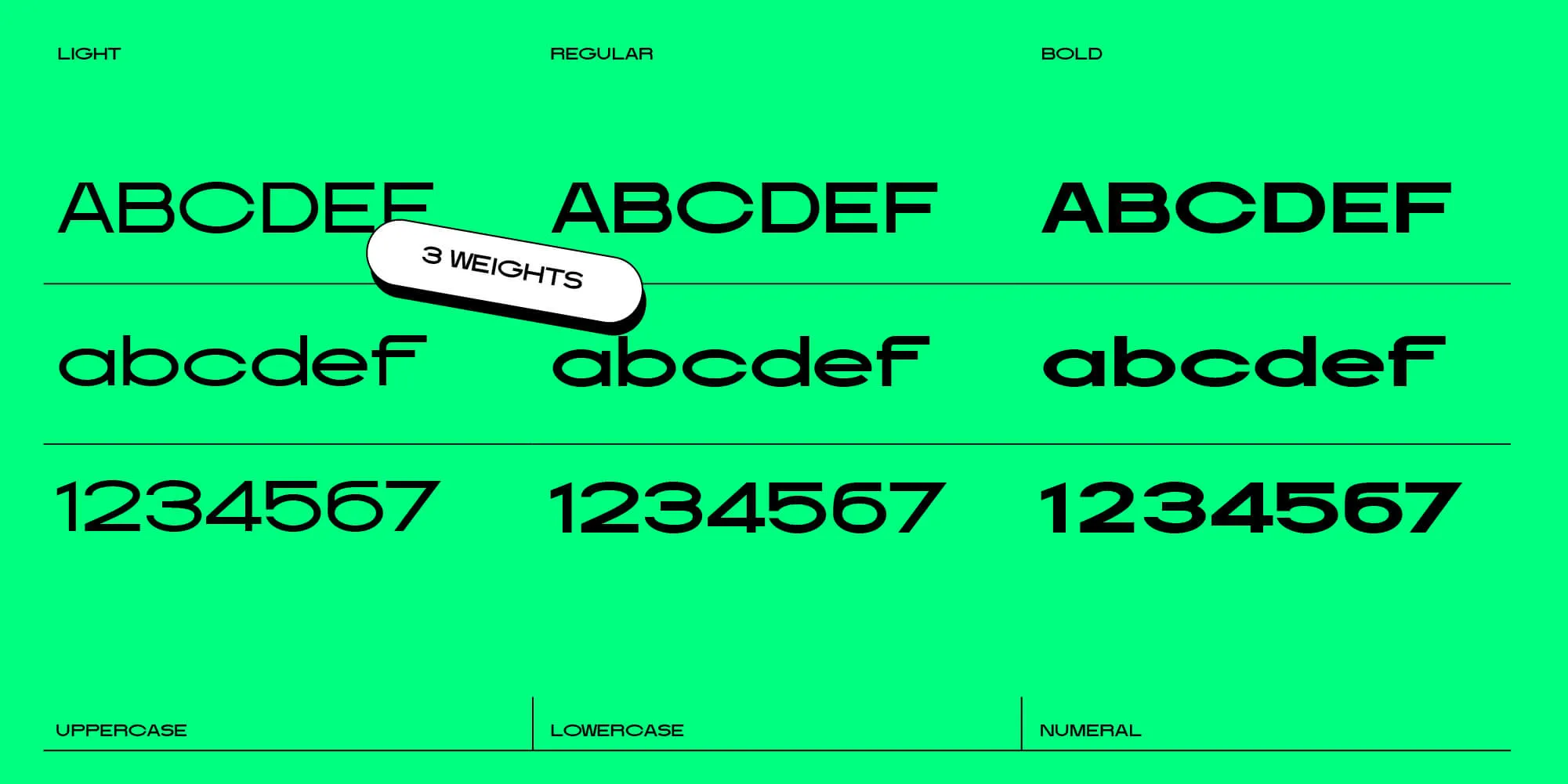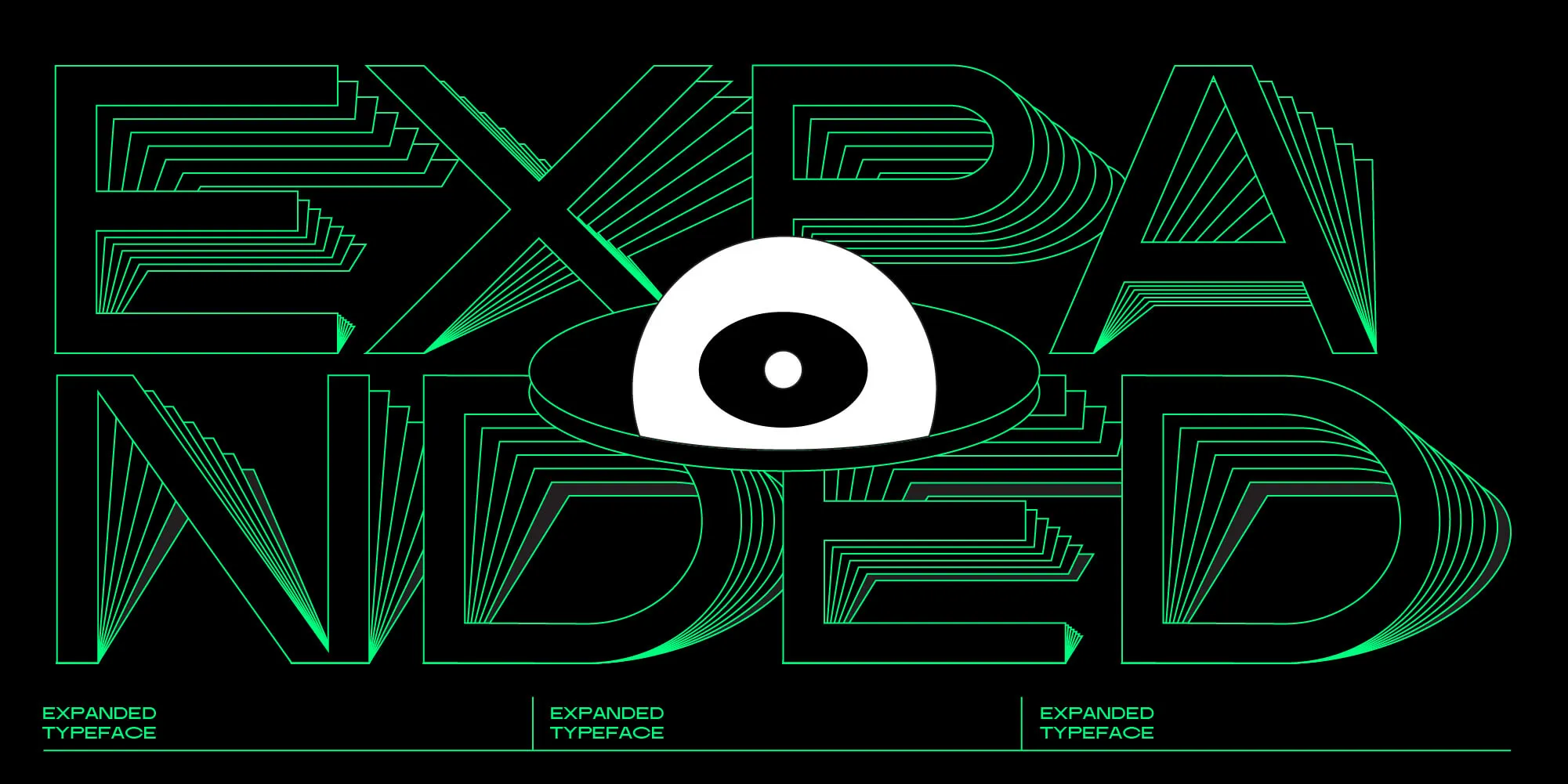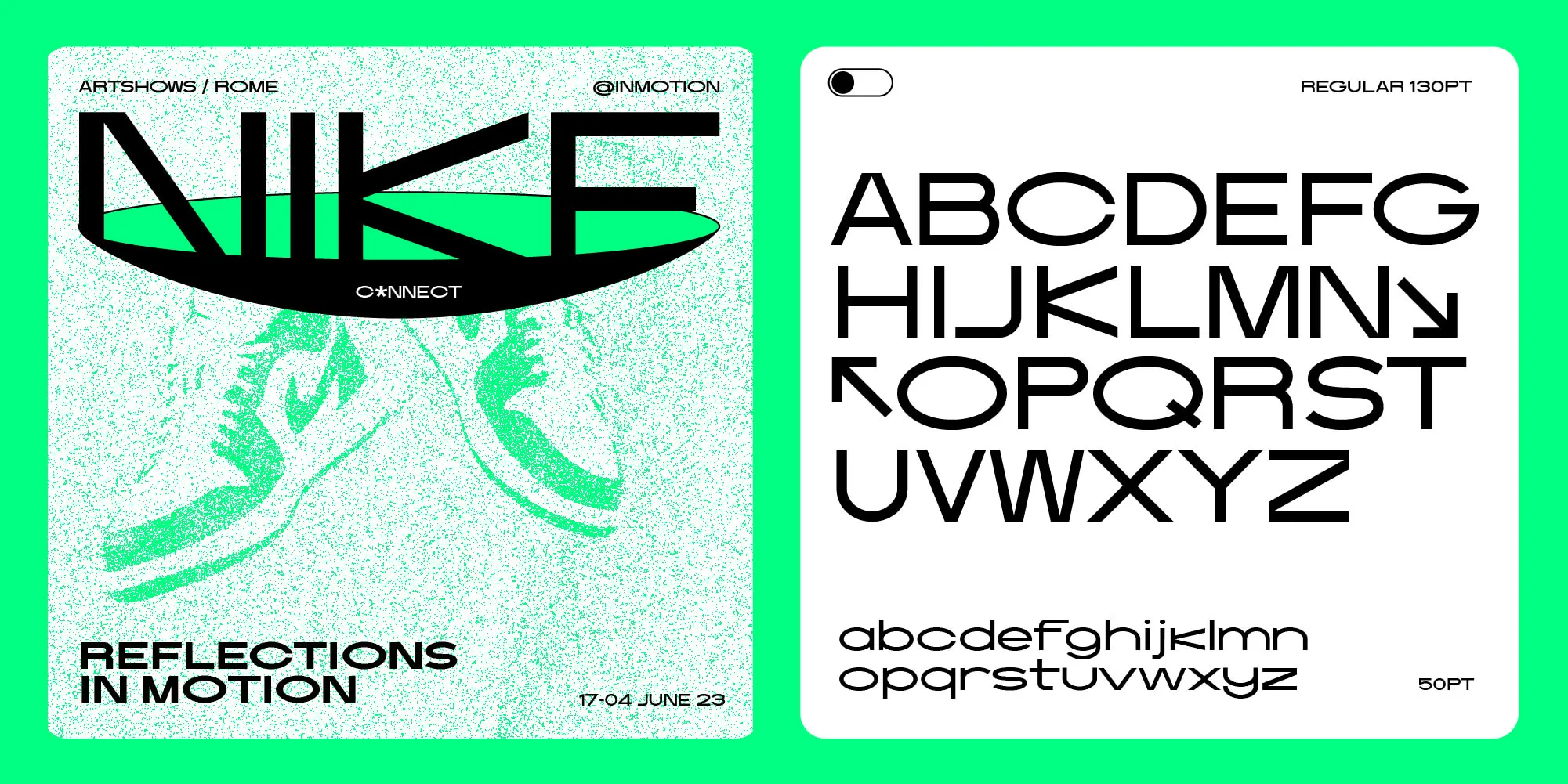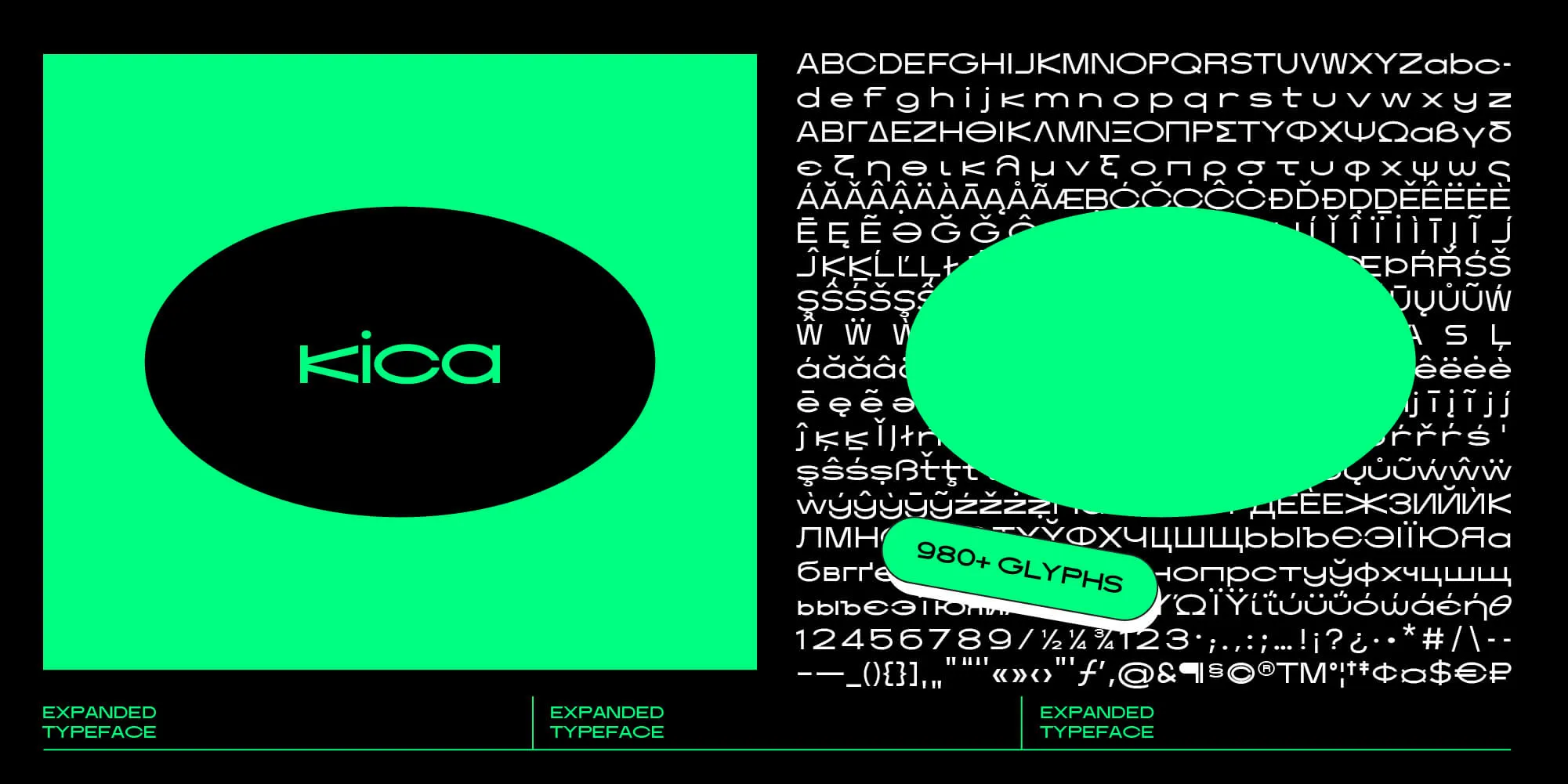
KICA DISPLAY FONT
Kica is a modern display font that is characterized by its clean lines, bold strokes, and geometric shapes.
This typeface was designed with the intention of creating a strong visual impact and capturing attention.
• Opentype Features
• 4 weights
• Upper / lower case, numbers, punctuation
• Supported Languages: Latin, Greek & Cyrillic